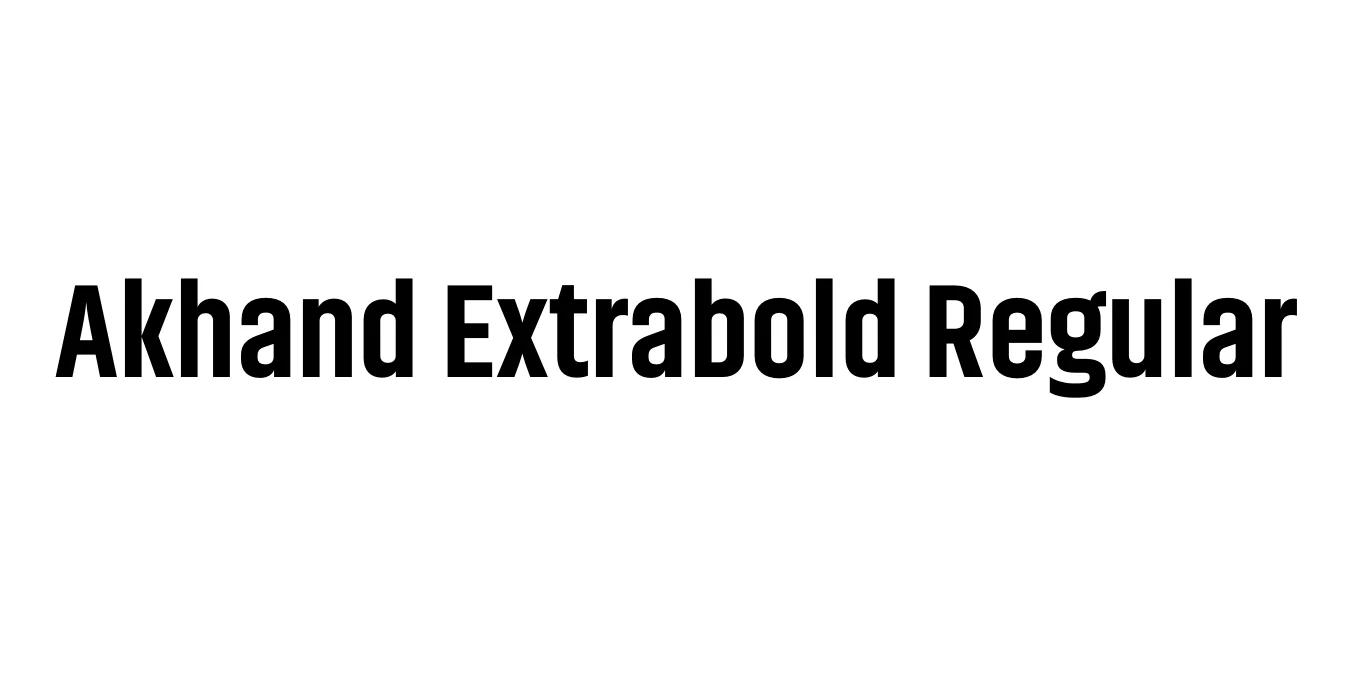
Akhand Extrabold Regular
Designed by Satya Rajpurohit
Akhand Extrabold Regular is a powerhouse typeface belonging to the Akhand family, designed by the renowned Satya Rajpurohit and published by the Indian Type Foundry (ITF). This font is characterized by its modular, compact structure and features flattened curves with straight sides. These design elements give it a distinctively mechanical and modern appearance, allowing it to maintain exceptional legibility even when used in condensed spaces or high-impact environments.
The Extrabold variant is specifically engineered for maximum visual weight, making it a primary choice for designers working in news broadcasting, corporate branding, and sports media. Its high x-height and uniform stroke thickness ensure that it commands attention in both digital interfaces and large-scale print applications. Since its release, it has become a staple for those seeking a bold, industrial aesthetic that conveys strength and reliability.
Akhand Extrabold Regular Best Uses
Ideal for news tickers, lower thirds, and breaking news headlines.
Perfect for creating strong, stable brand identities for tech and industrial companies.
Works exceptionally well for large-scale posters and outdoor advertisements.
Great for impactful hero sections and high-visibility call-to-action buttons.